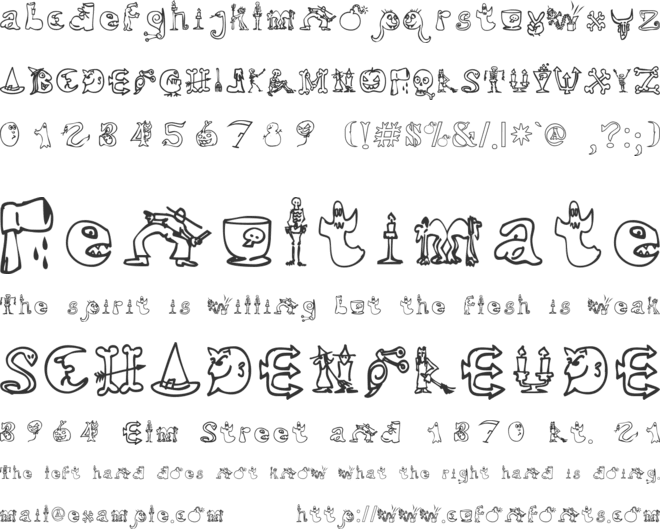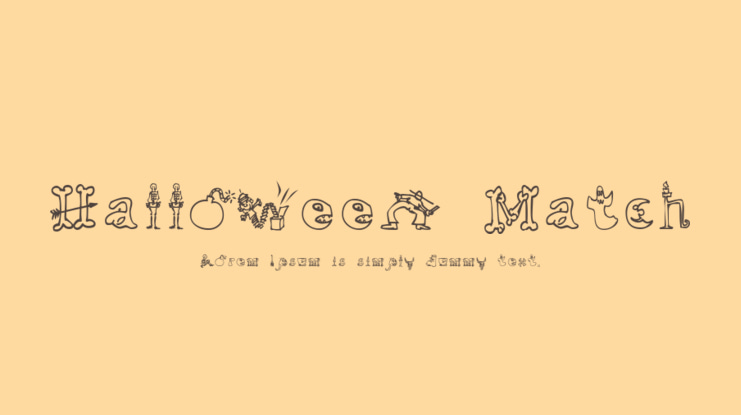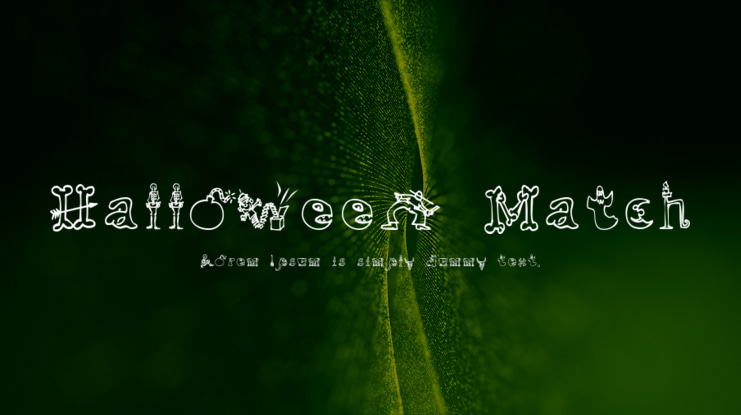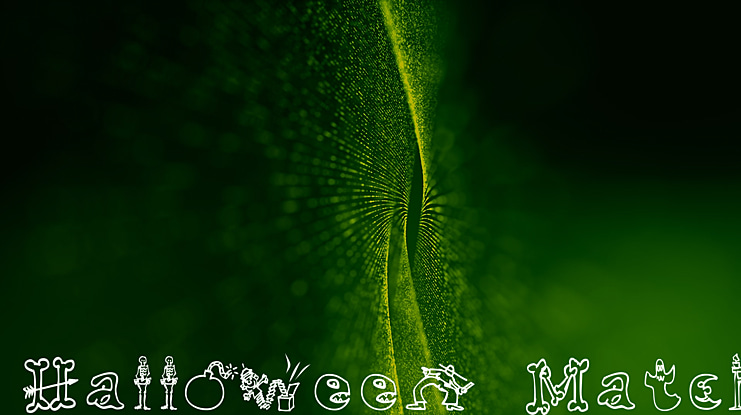
Halloween Match Font
Halloween Match is one of the most original typefaces in the Bujardet collection. Everyletterform is at the same time a small picture, which makes it one of the very few pi fonts that can be read, and used, on several levels. Images represent also characters, for instance "A" is a witch hat, "C" is a moon crescent, and "S" is a snake. As dingbat, it can take part in nice layouts, where pictures play the role of pictograms. As a legible Roman alphabet, it can still say things. For instance "Boo". And finally, it can be used to construct small stories made out of pictures.